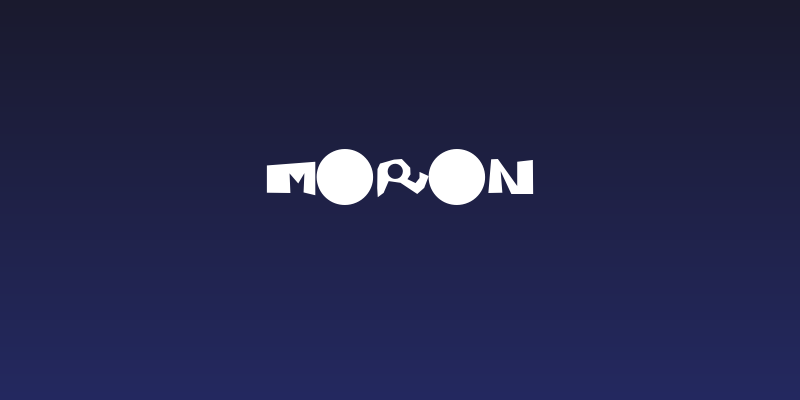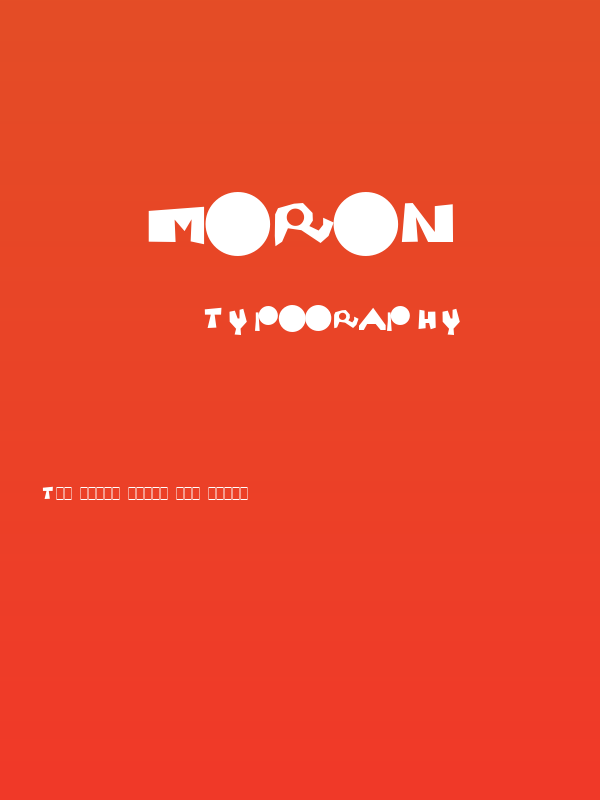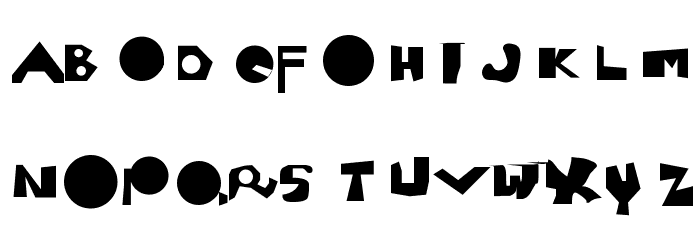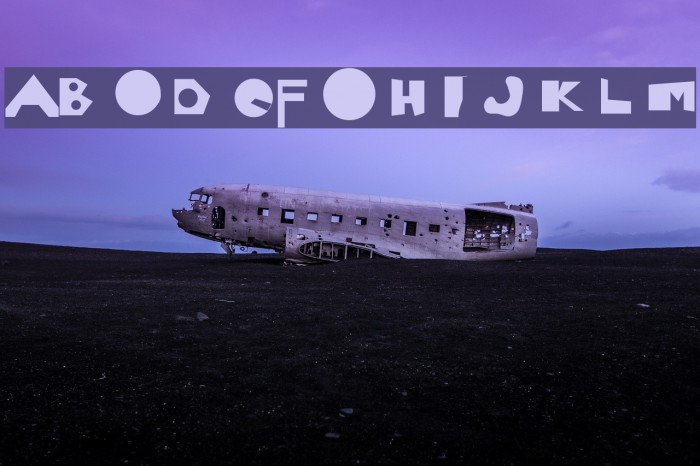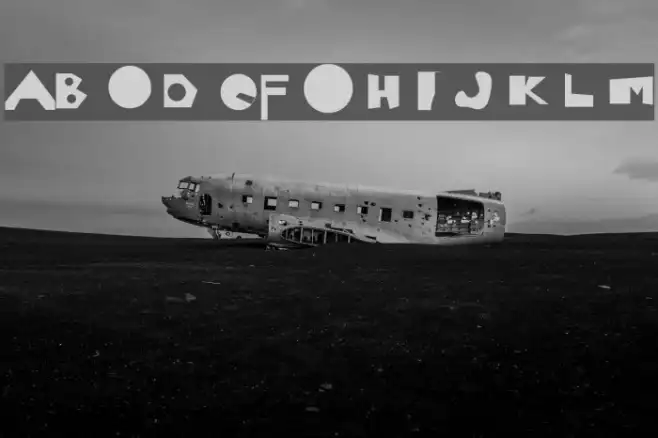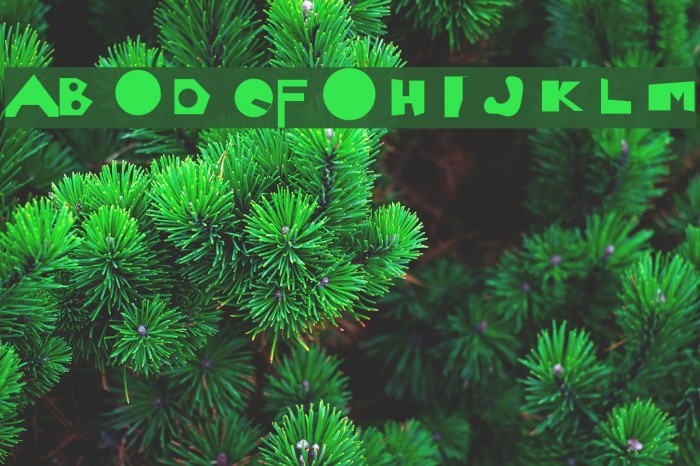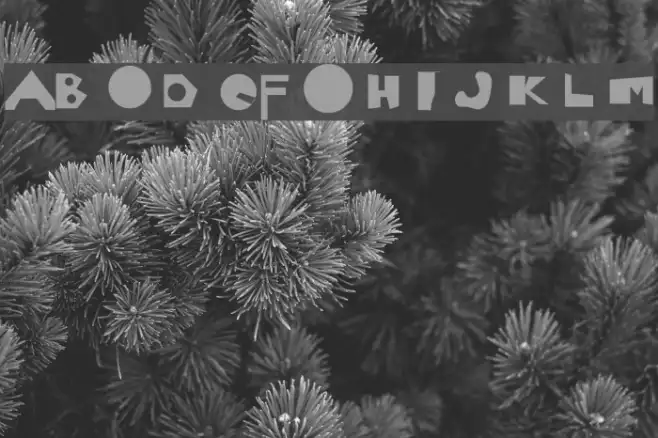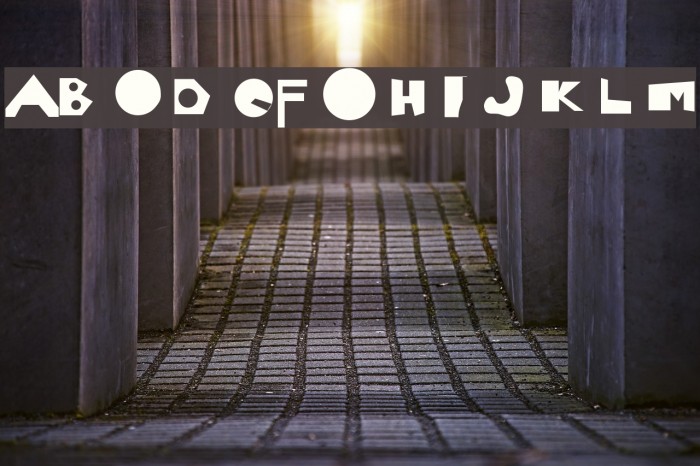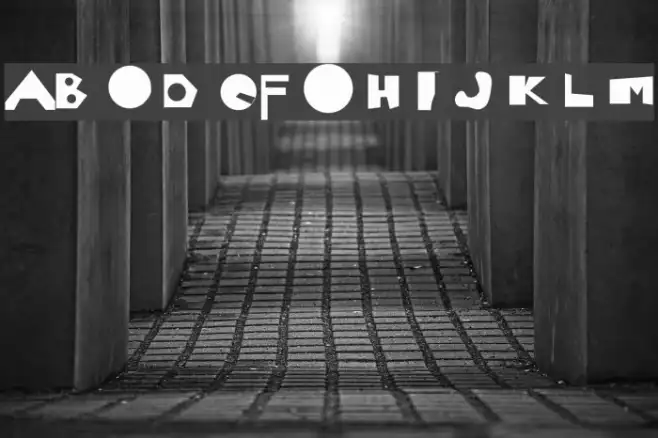
Moron Font
Moron Description
This font features a highly decorative and abstract design, with each character crafted from bold, geometric shapes. The letters are composed of solid black forms, often incorporating circles, triangles, and rectangles, creating a playful and artistic appearance. The uppercase letters are particularly striking, with some characters resembling abstract art more than traditional letterforms. This font is not designed for readability but rather for visual impact, making it ideal for creative and avant-garde projects. The unique style of each letter ensures that no two characters look alike, adding to the font's distinctiveness.
| Use Case | Logos, Headlines, Artistic Displays |
| Proposed Projects | Ideal for artistic posters, album covers, modern art installations, and creative branding projects. |